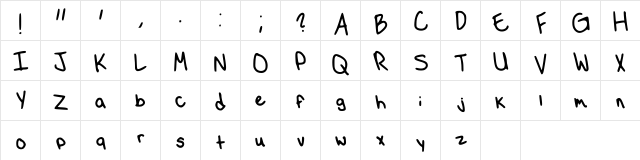
Mcboingo Regular
Design Context for Mcboingo Typeface
Mcboingo is a composed and adaptable typeface that performs quietly and consistently across a wide range of design contexts.